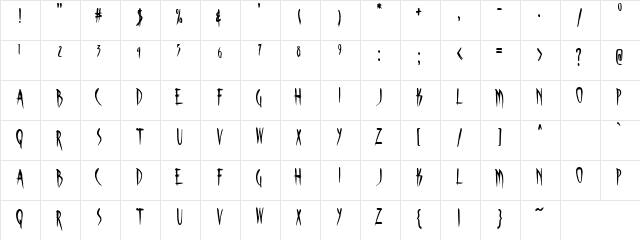
Itsy Bitsy Regular
Design Context for Itsy Bitsy Typeface
Itsy Bitsy is a composed and adaptable typeface that performs quietly and consistently across a wide range of design contexts.